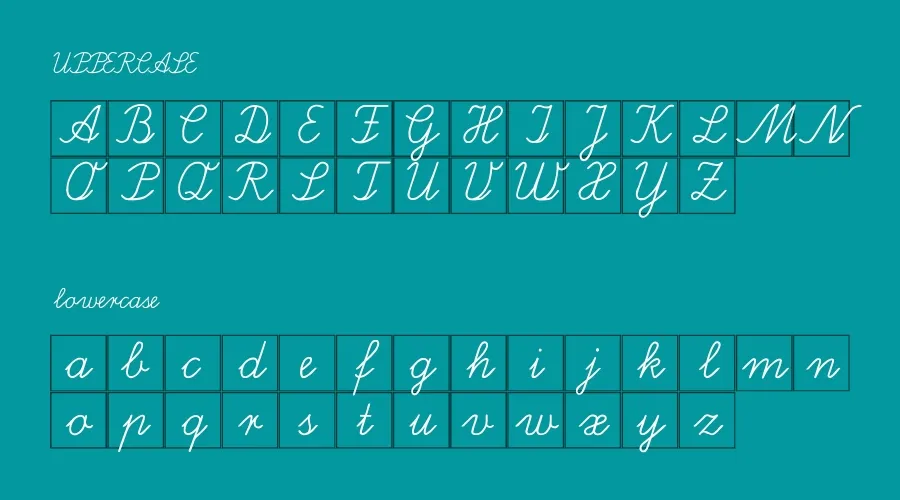
Schreibschrift Font
About Schreibschrift Font
The Schreibschrift Font was invented by URW++ and is under the category of the script texture family. It has a good-looking and stylish texture look appearance for visitors.
Due to its script texture family, you may be utilized it for creating stylish and new modern purposes. As a designer, this font is the perfect choice for making posters, logo designs, social media posts, banners, and many other projects.
This style supports numerous international languages, such as Latin, Greek, English, and some other unique languages.
Name Schreibschrift Font
Designer URW
Style Script
• Schreibschrift Italic
• Schreibschrift Bold
• Schreibschrift Regular
What font is Schreibschrift Font?
The Schreibschrift Font was invented by a famous graphic designer known as the name of URW++ and is under the category of the script texture family.
How old is Schreibschrift Font?
It is a new modern style. This font technique is very relaxed, which means that you can utilize it in many different ways. It works well for both birthday invitations and Christmas cards.